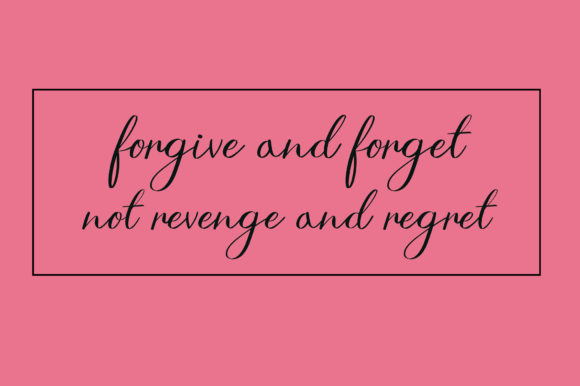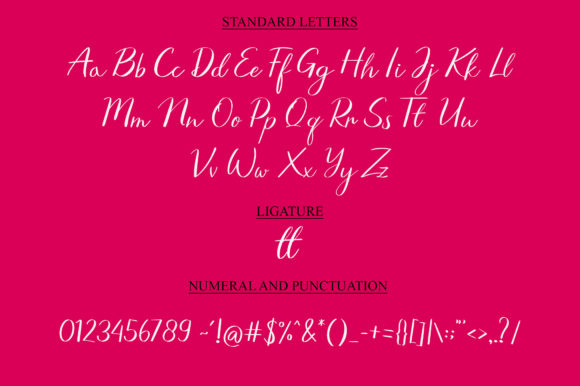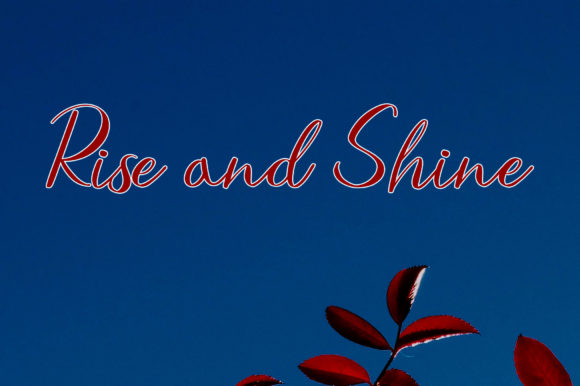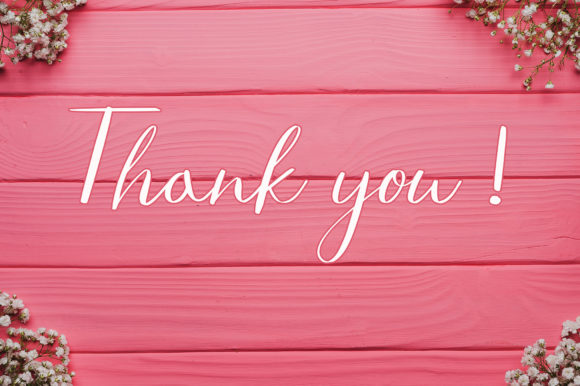
Honey Latte Font
About Honey Latte Font
Honey Latte is a lovely and delicate script font that exudes elegance and class. This font was particularly crafted for those who need a beautiful and refreshing look to their designs.